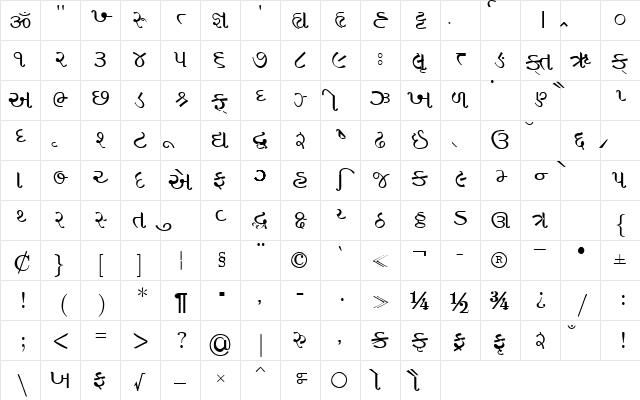
Vakil_01 Normal
Design Context for Vakil_01
Vakil_01 is a composed and adaptable typeface that performs quietly and consistently across a wide range of design contexts.